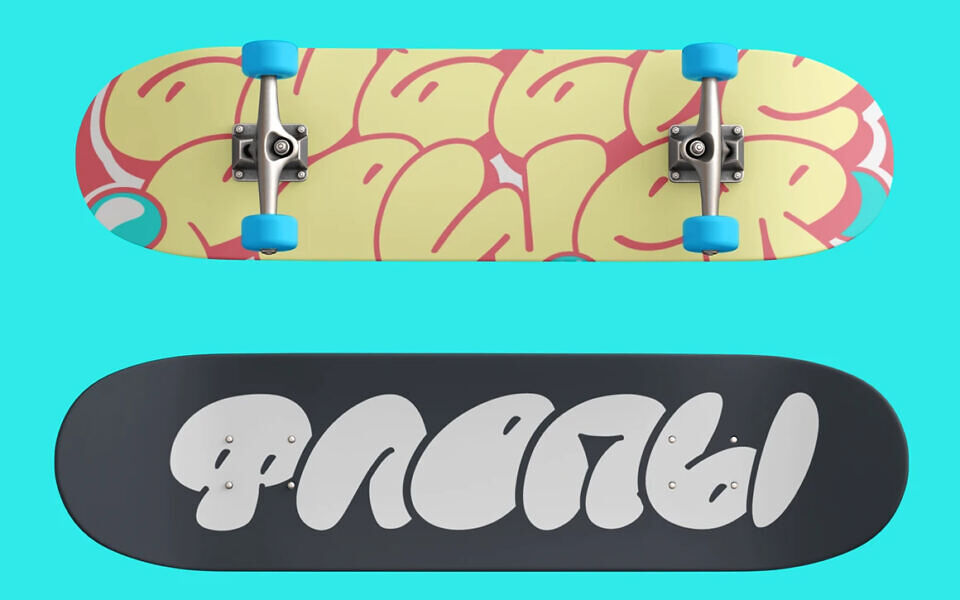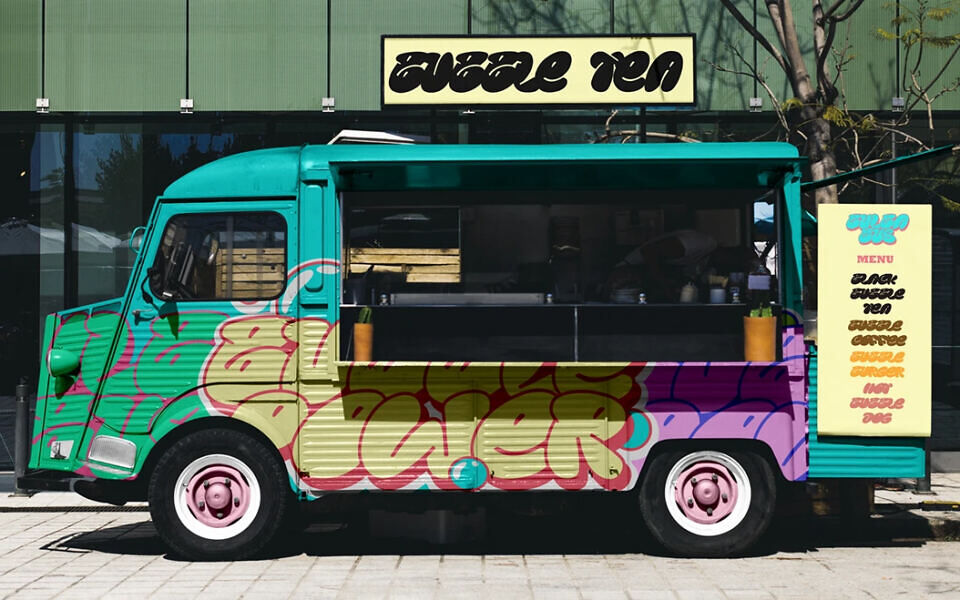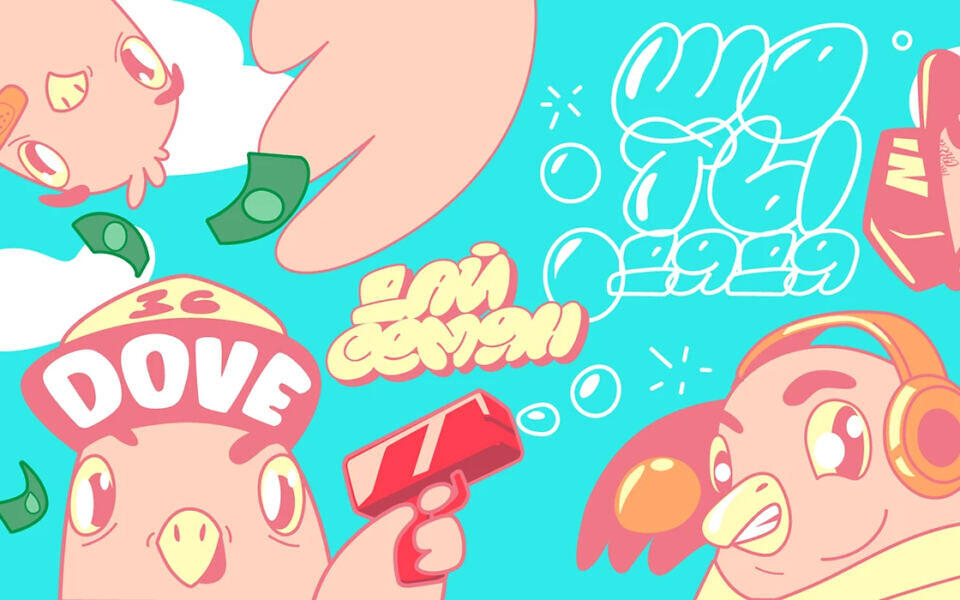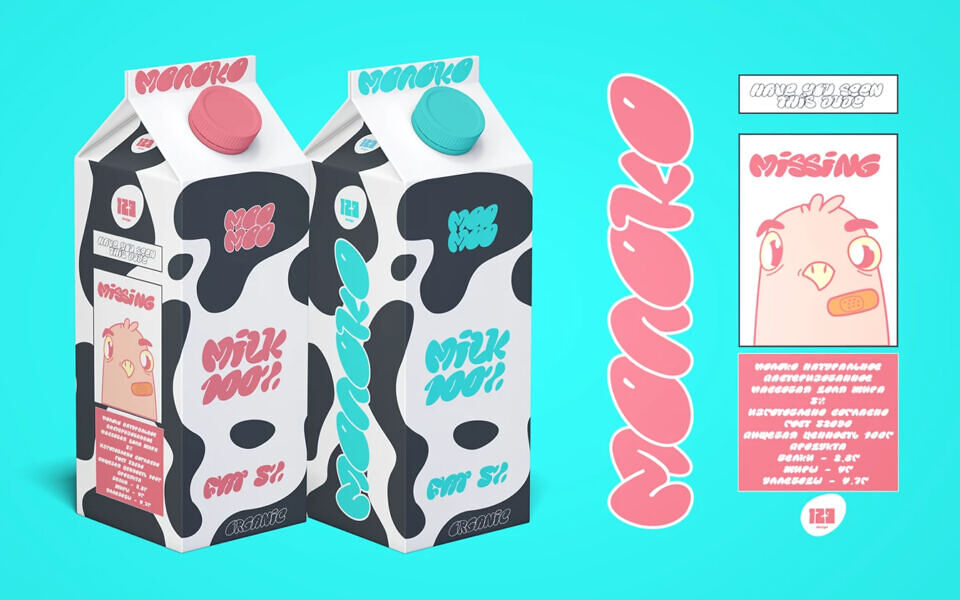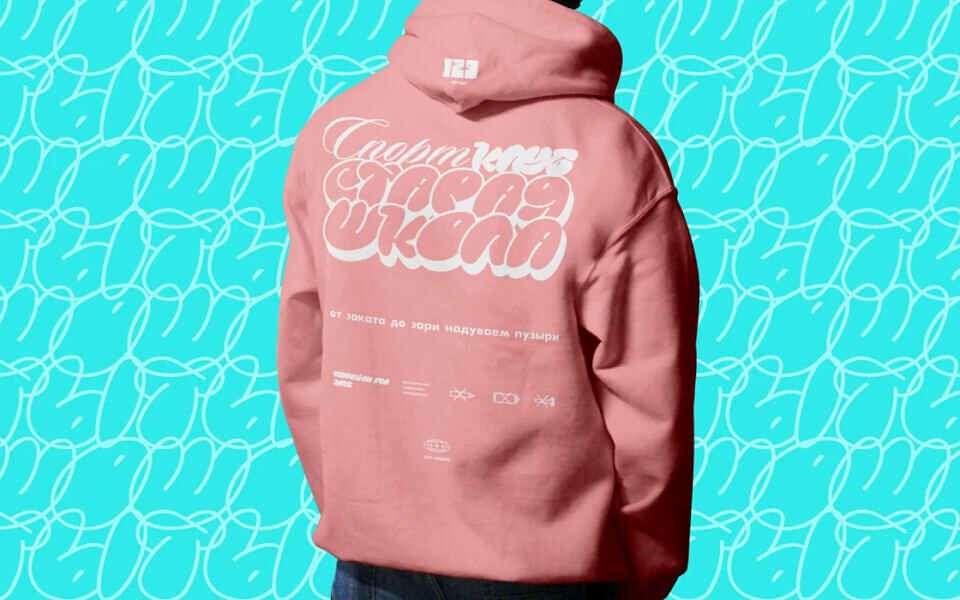
129 Fatboy Font by Vadim Bashlakov is a playful and expressive graffiti bubble flop typeface that bursts with personality. Inspired by street art and cartoonish flair, this chunky font features glossy, balloon-like letters with both Latin and Cyrillic support.
Each character has a soft, inflated look with stylized highlights, making it ideal for vibrant branding, skate culture, packaging, or youth-focused projects. The font includes a full set of symbols, numbers, punctuation, and alternates in both filled and outline styles. It’s bold, fun, and totally free—perfect for turning any design into a visual treat.